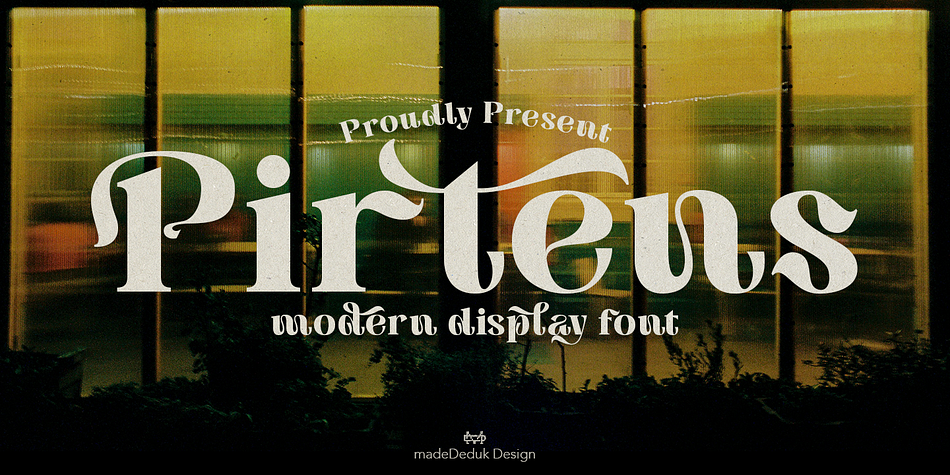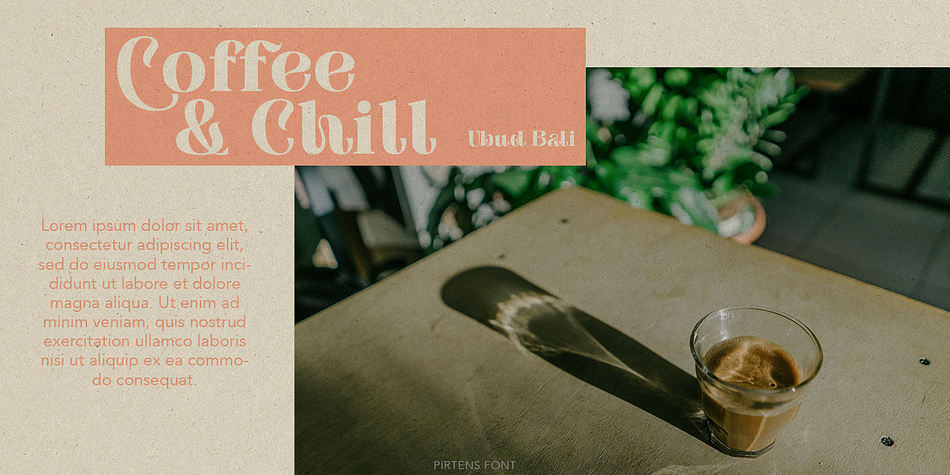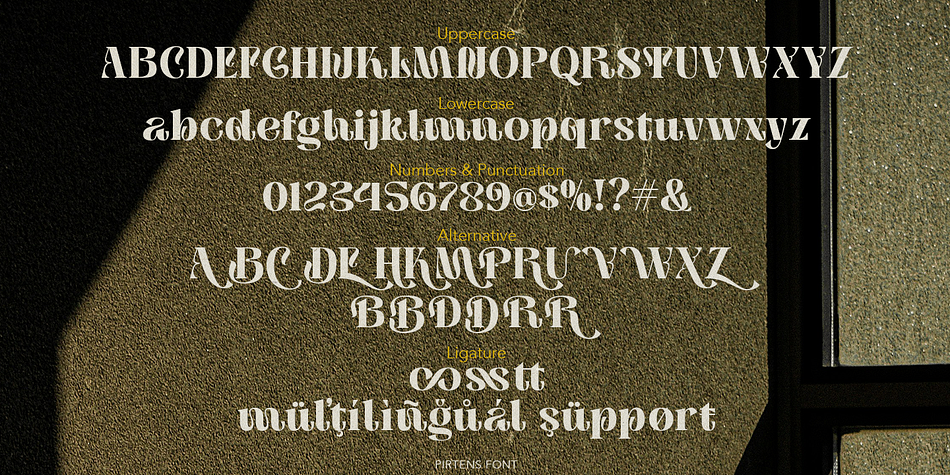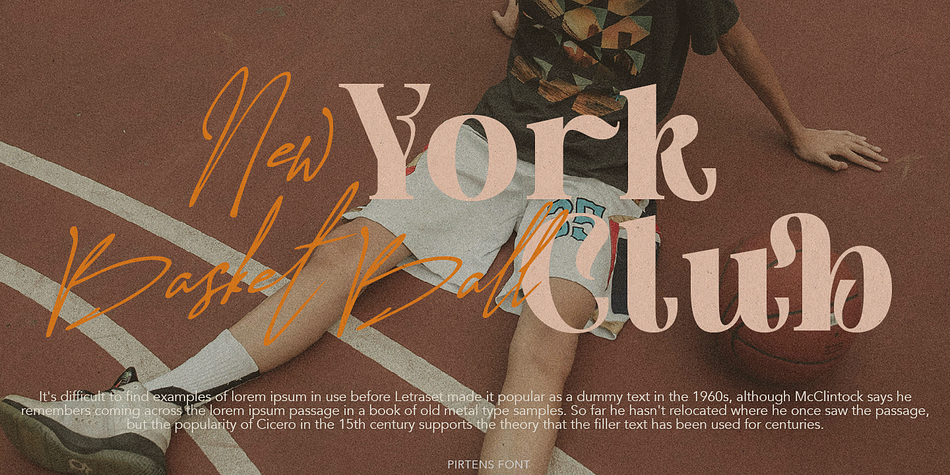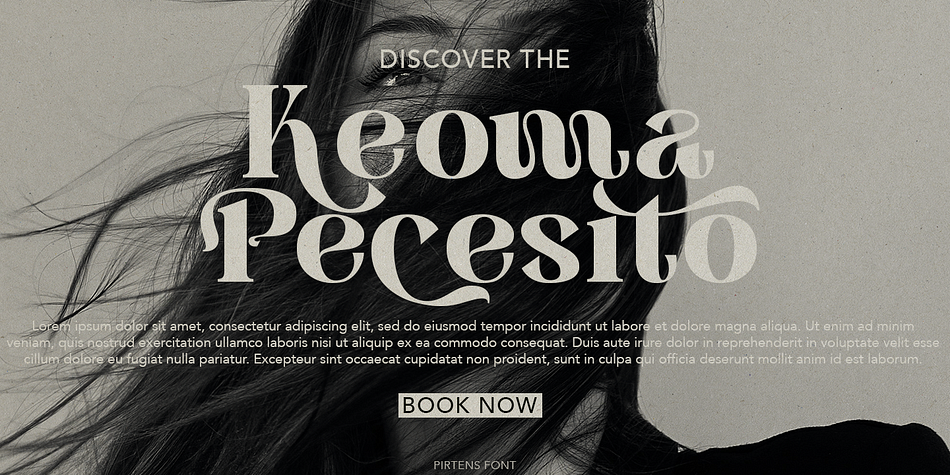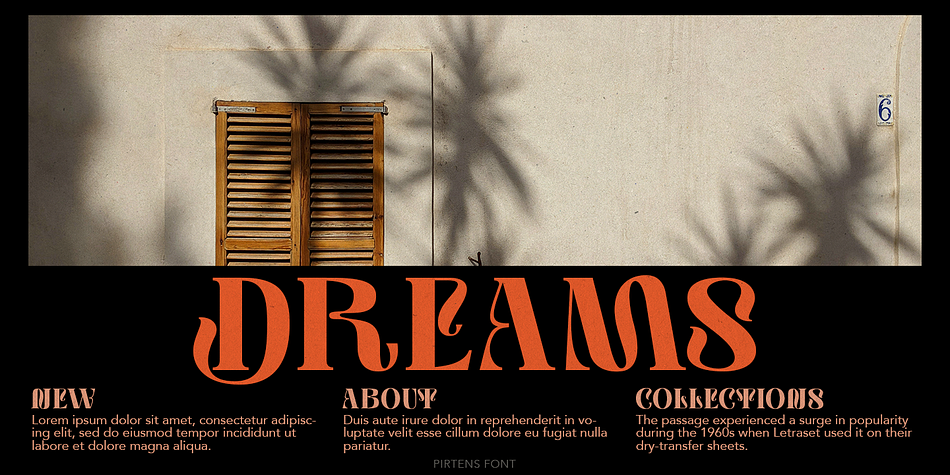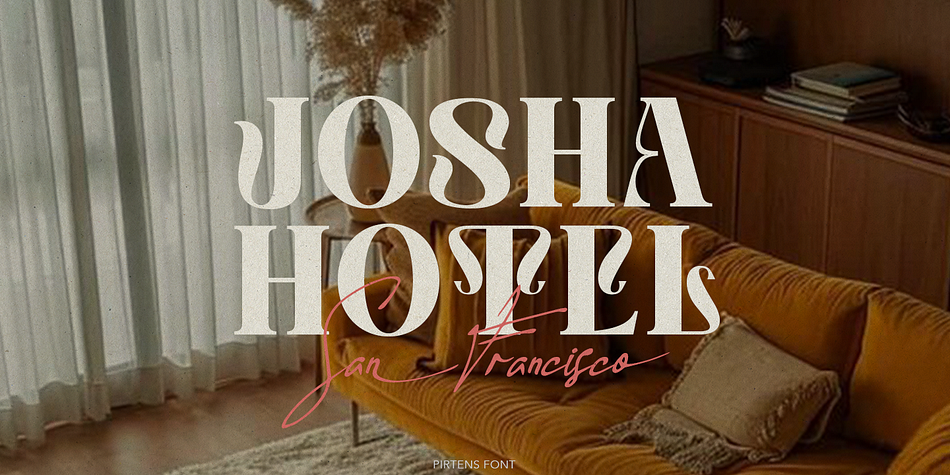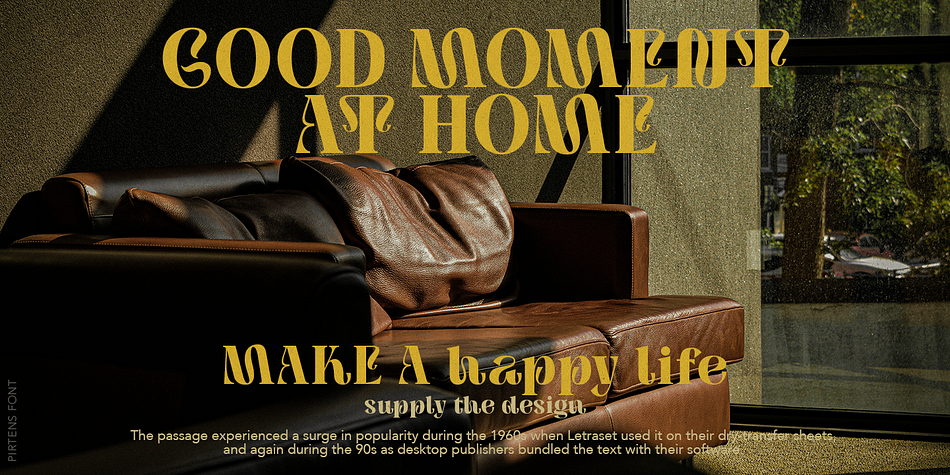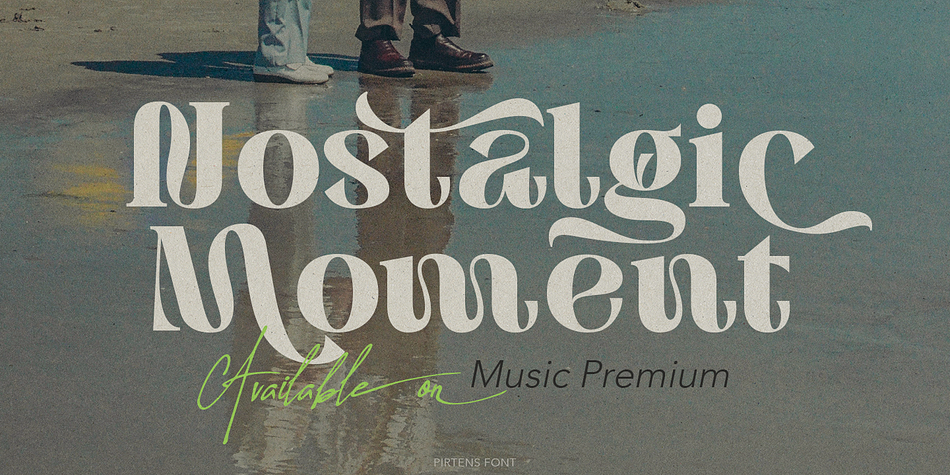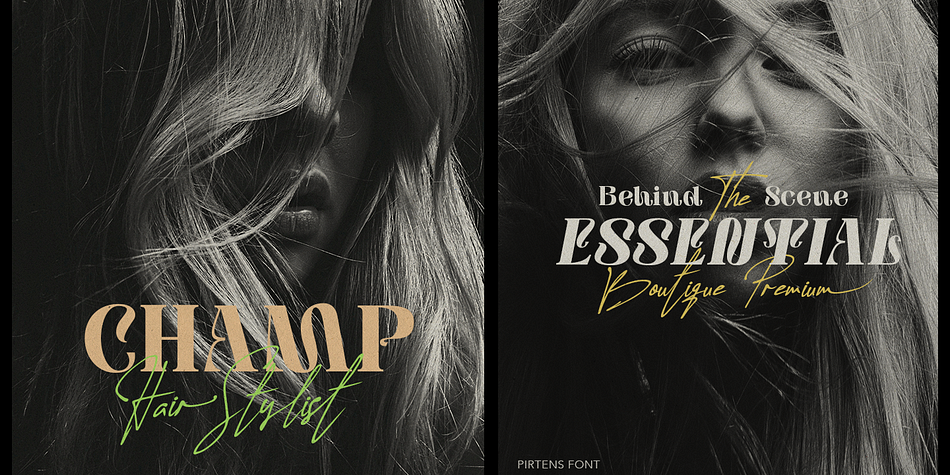
Pirtens
Designed by Suandana Ipandemade, Pirtens is an art nouveau font family published by madeDeduk.
Pirtens is a display font, simplistic, high-contrast sans that is at home in high-end fashion and cultural environments you can explore and combine. use this font for any branding, product packaging, invitation, quotes, t-shirt, label, poster, logo etc.
- Alternative
- Ligature